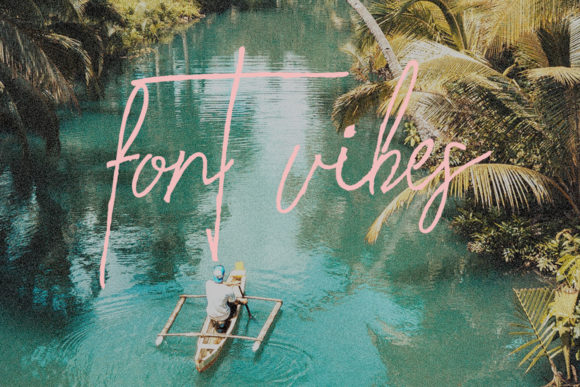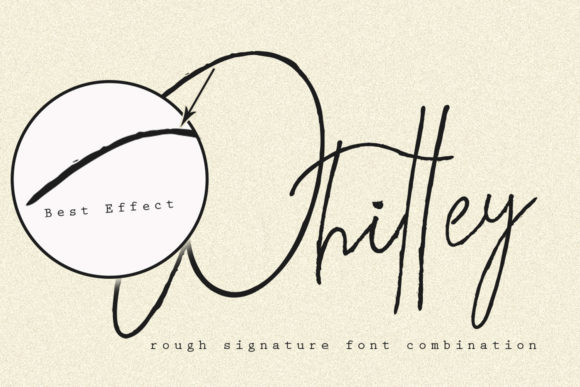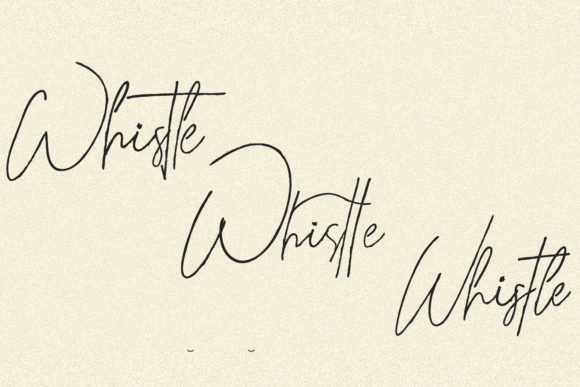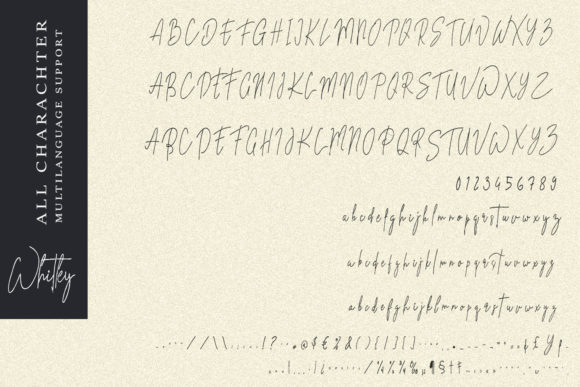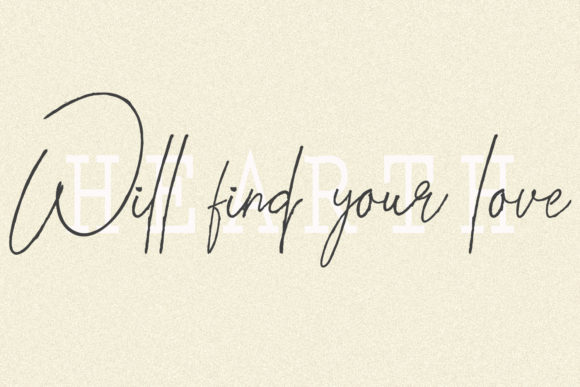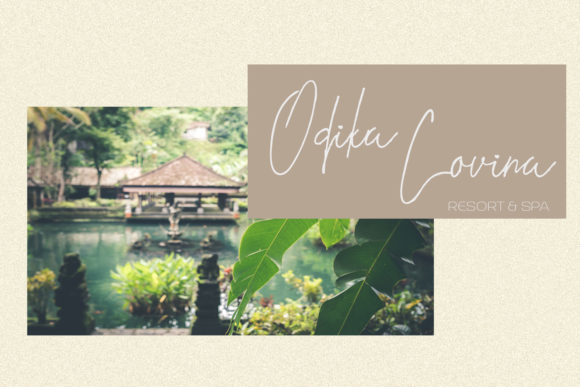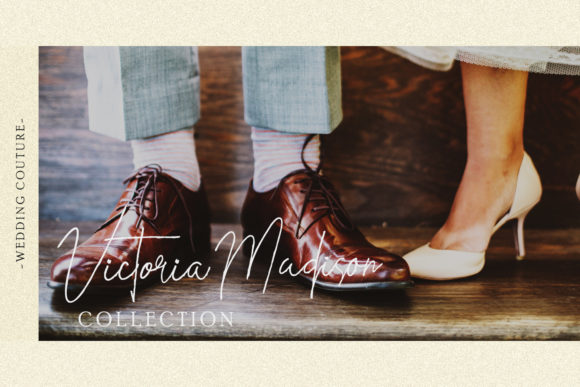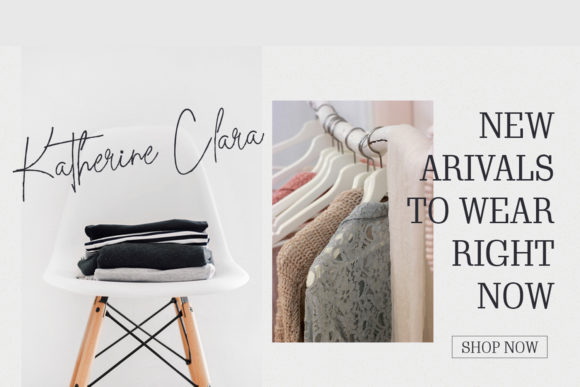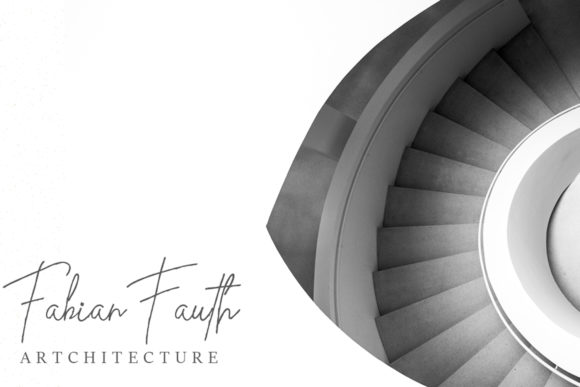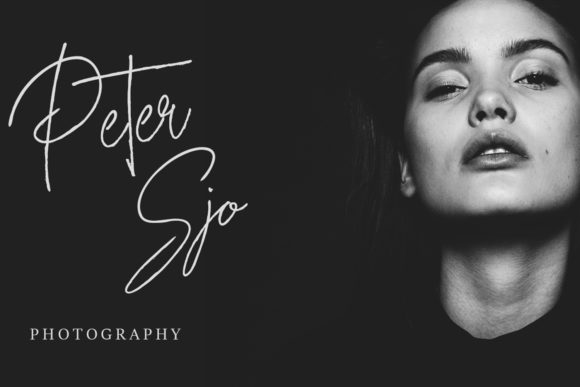
Whitley Font
About Whitley Font
Whitley is a unique signature font with an incredibly modern and light feel. Fall in love with its contemporary authenticity.